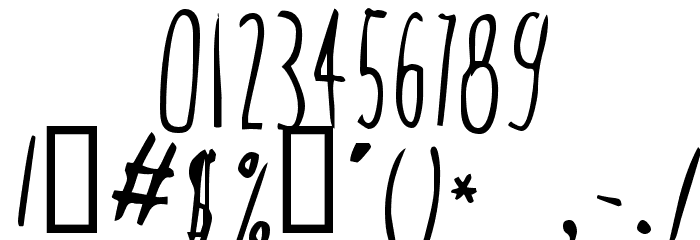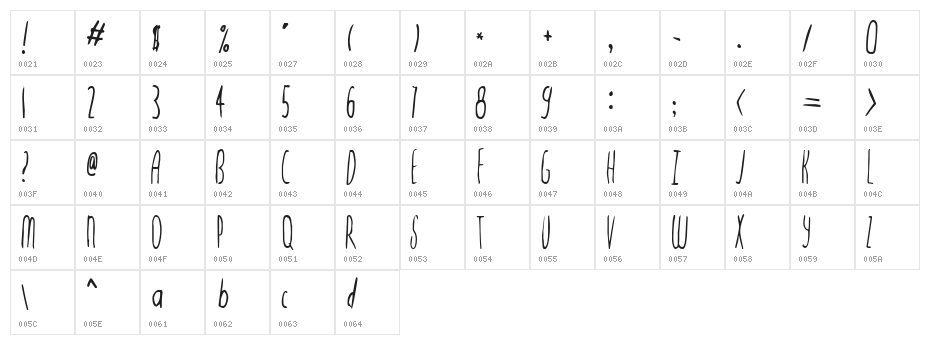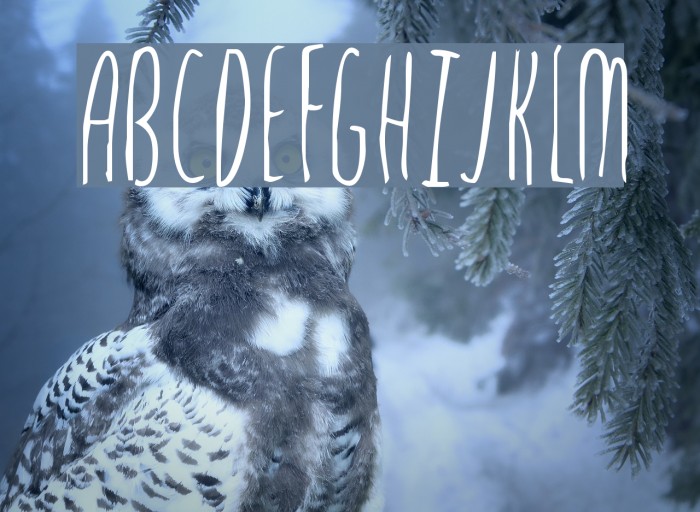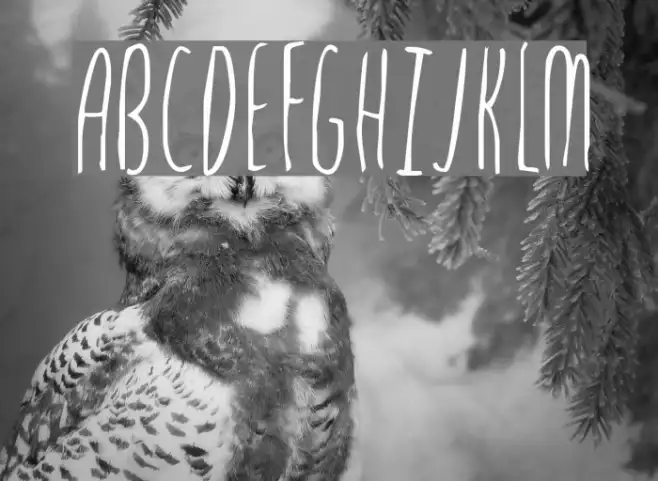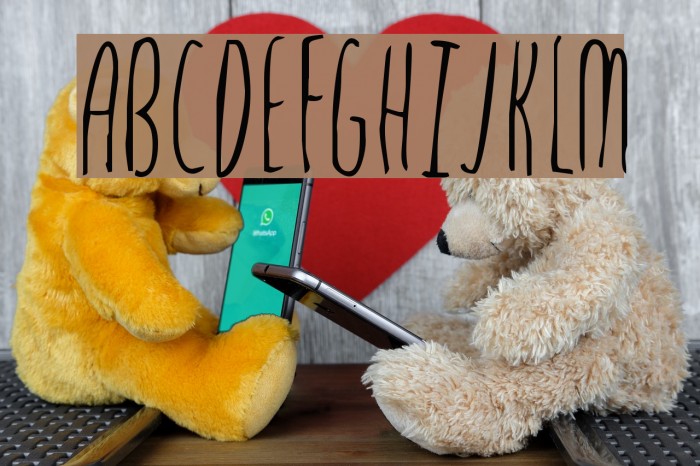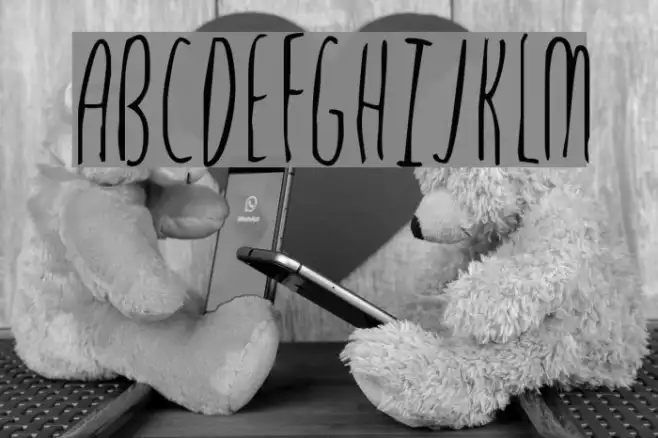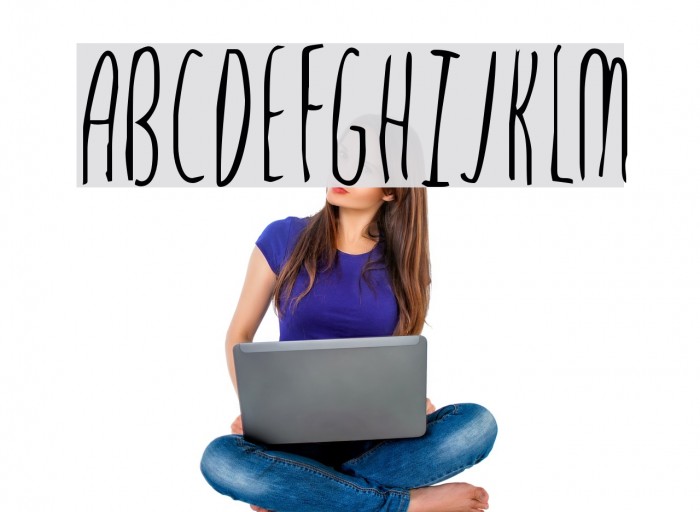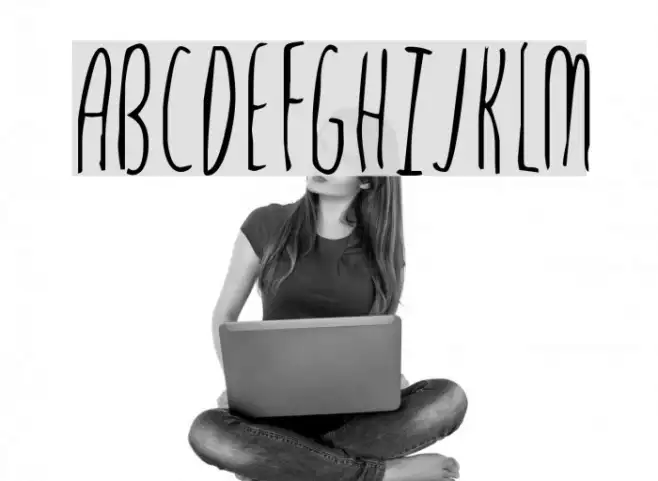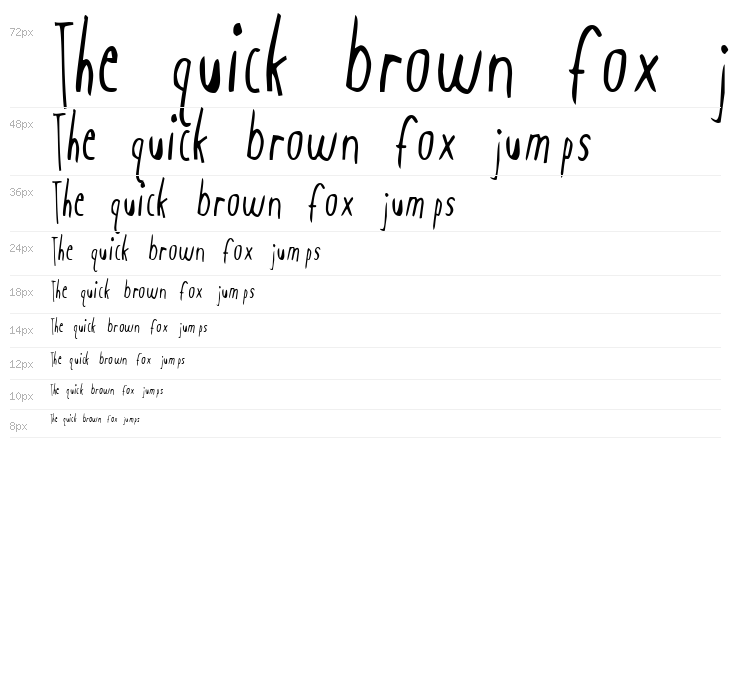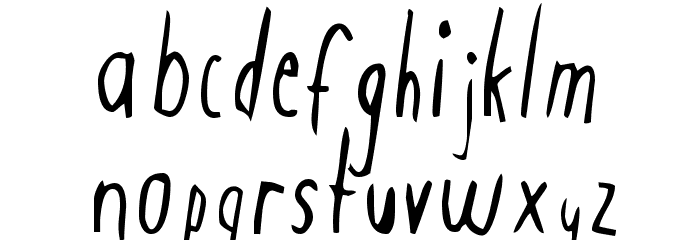
Mondo Font
Mondo Description
This font features a unique and playful design with tall, narrow characters that exhibit a hand-drawn quality. The uppercase letters are particularly elongated, giving them a distinctive appearance that stands out. The lowercase letters maintain a consistent style, with some characters like 'f' and 'j' having extended descenders that add to the whimsical feel. The numerals are similarly styled, with a quirky, uneven look that complements the overall aesthetic. Special characters are included, maintaining the same playful and irregular design. This font is perfect for projects that require a touch of creativity and individuality.
Use CaseHeadlines, Logos, Creative projects
Proposed ProjectsIdeal for children's books, creative posters, artistic branding, and playful invitations.